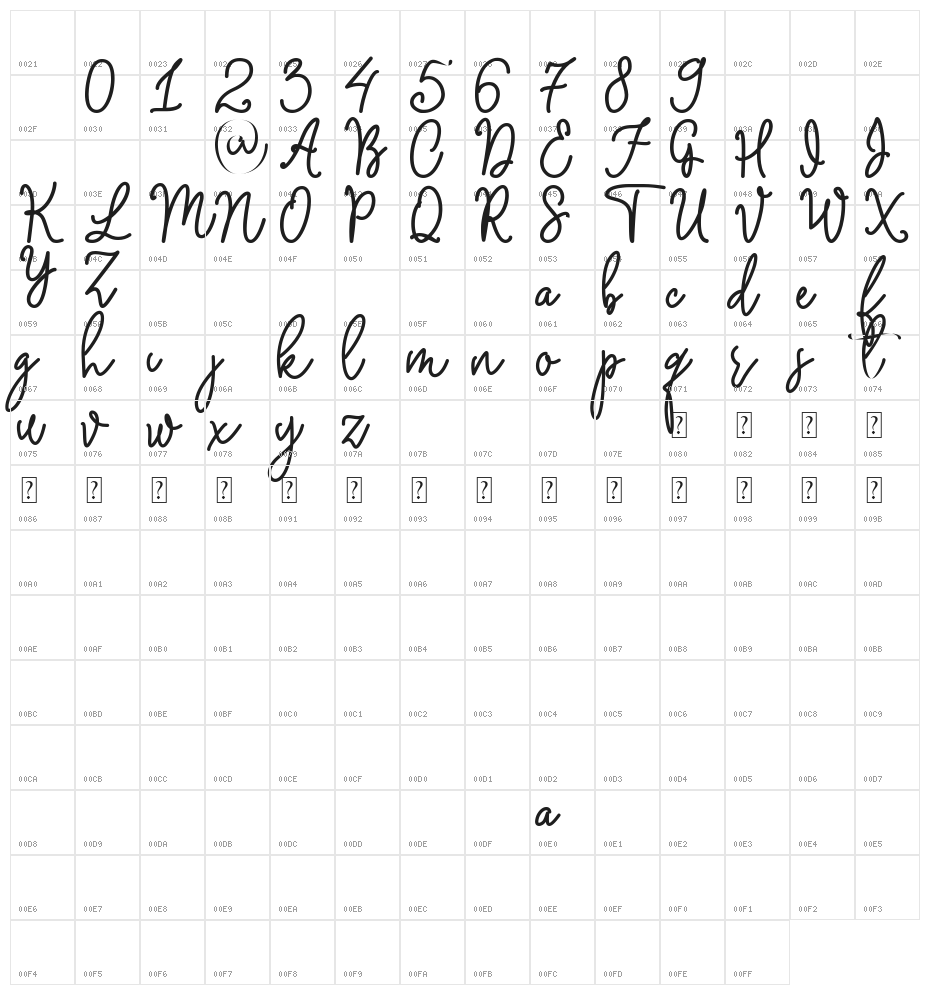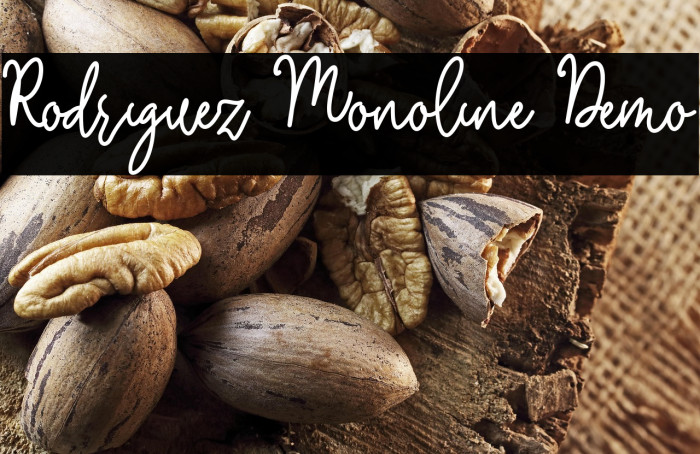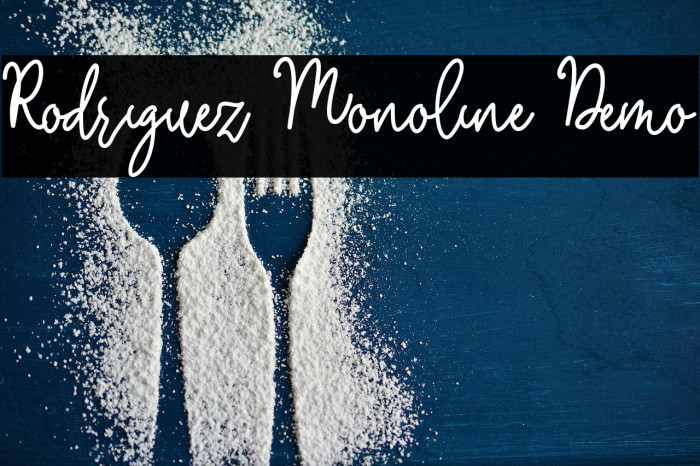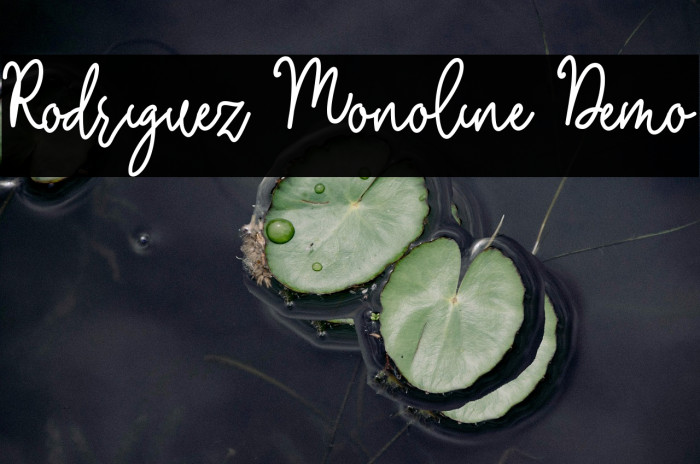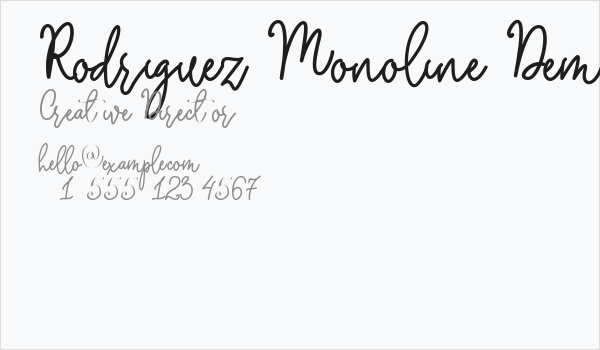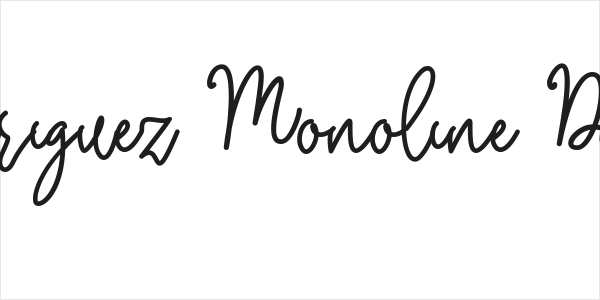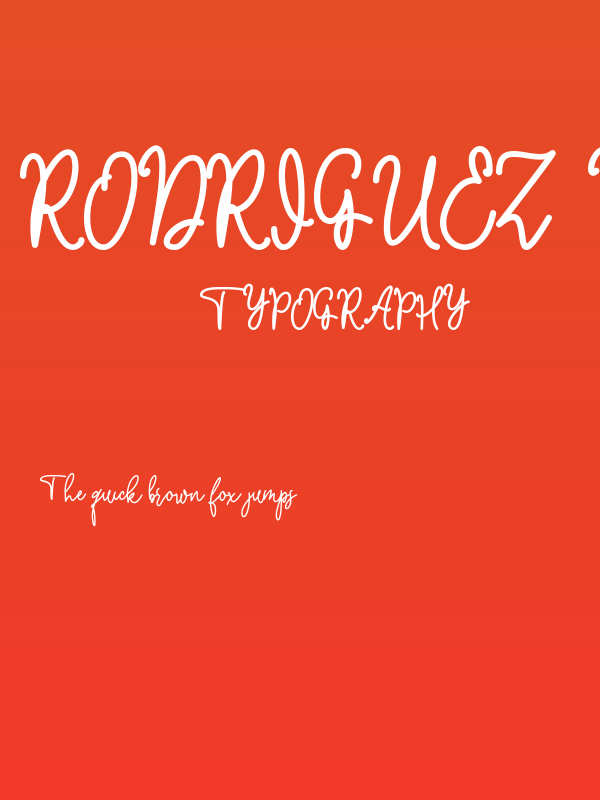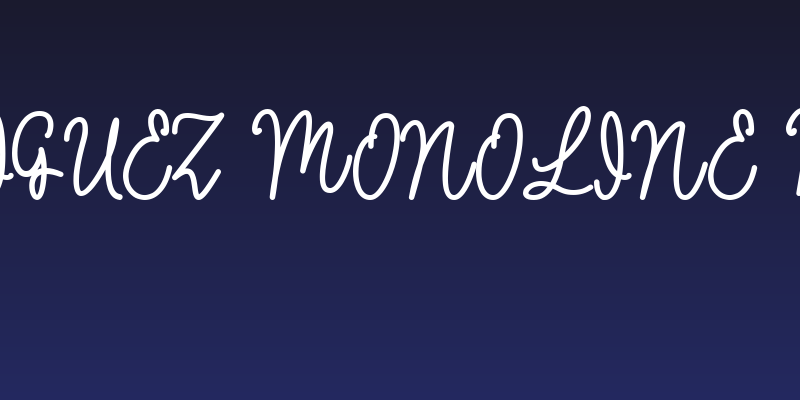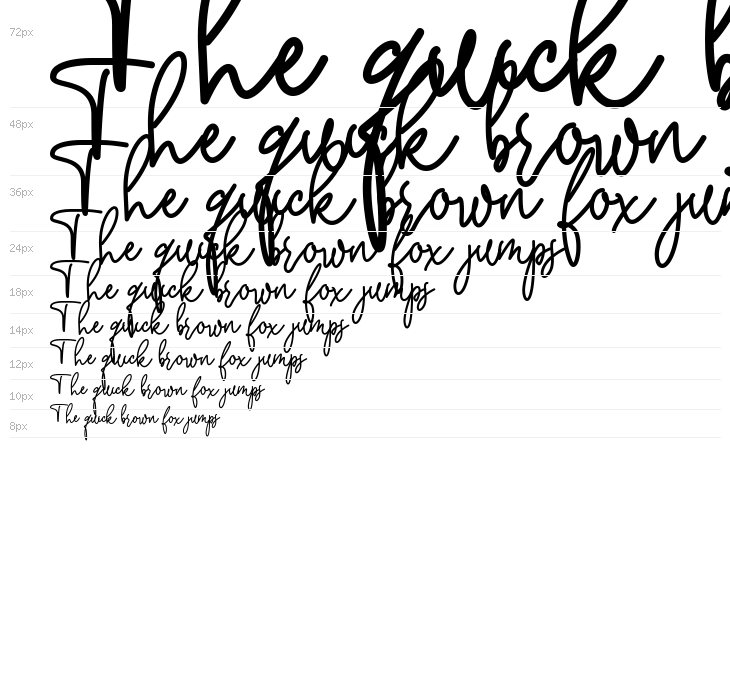
Rodriguez Monoline Demo Font
Rodriguez Monoline Demo Description
This font features a smooth, flowing script style that mimics the fluidity of handwriting. Each character is connected, creating a seamless and elegant appearance. The strokes are consistent in width, giving it a monoline quality that enhances its readability while maintaining a sophisticated look. The uppercase letters are slightly more ornate, with loops and curves that add a touch of flair, while the lowercase letters are more subdued, offering a balanced contrast. The numerals and special characters follow the same stylistic cues, ensuring uniformity across all elements.
| Proposed Projects | Ideal for wedding invitations, greeting cards, branding, and logo design where a personal, elegant touch is desired. |